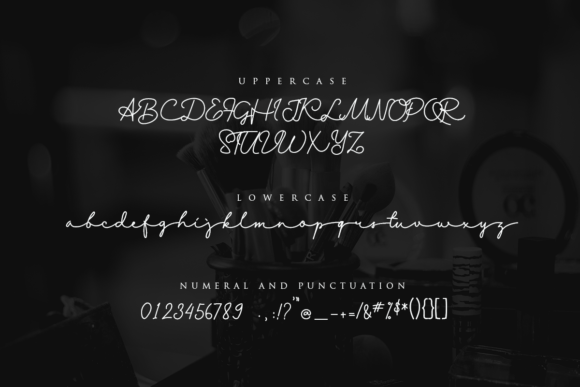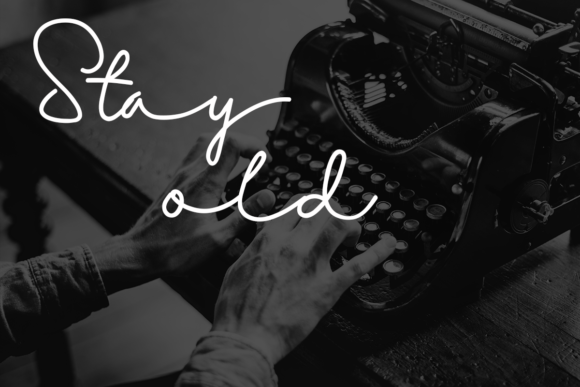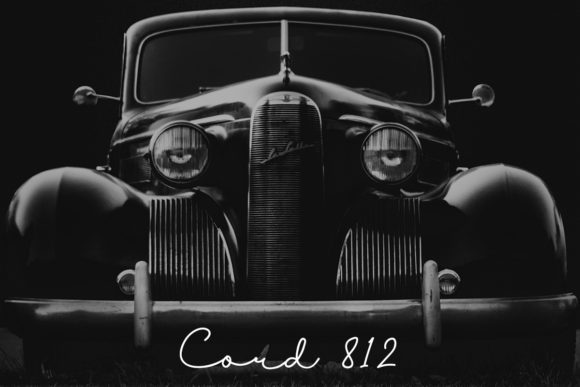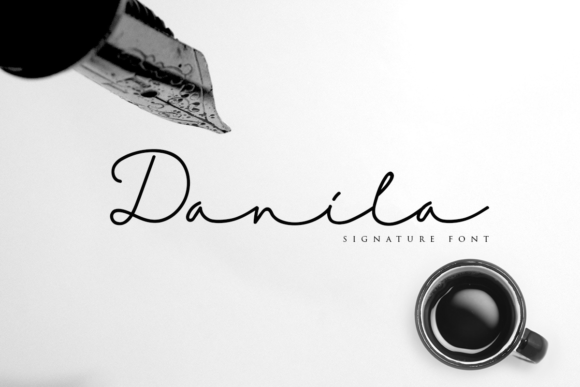
Danila Font
The Danila is a modern script font. Its handwritten style gives it a natural and elegant feel.
Perfect for every design which needs a stylish typeface!